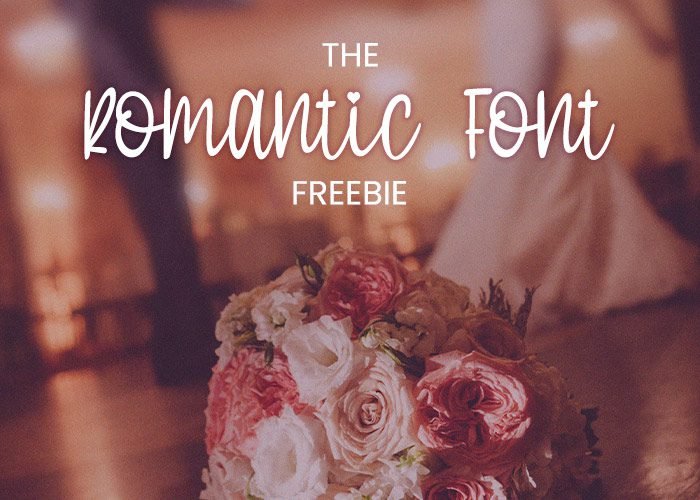
The Romantic Font Freebie!
Looking for a font that exudes passion and romance? Look no further than Romantic font!
With its elegant and flowing script, the Romantic font captures the essence of love in every letter. Each character is carefully crafted to convey a sense of intimacy and warmth, perfect for adding a touch of romance to any project. Whether you’re designing wedding invitations, crafting love letters, or simply looking to add a romantic touch to your branding, Romantic font is the perfect choice.
But don’t let its delicate appearance fool you – Romantic font is also versatile and easy to read. Its clear, legible design ensures that your message will be conveyed with clarity and impact, whether you’re using it for print or digital media.
So why settle for a plain, ordinary font when you can add a touch of romance to your projects with Romantic font? Try it today and experience the power of love in every letter!
Preview of Free Romantic Font: